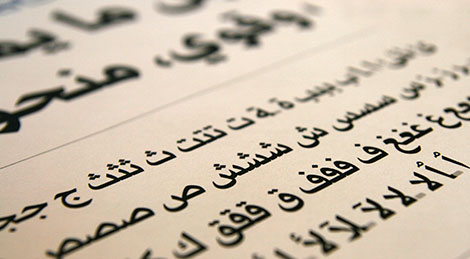
A native of Lebanon and specialist in Arabic fonts, Nadine was named one of the 100 Most Creative People in Business for 2012 by Fast Company magazine.
“Type cannot be divorced from the reality in which it lives. It is the voice with which we communicate, and it is the vessel of so many of our thoughts and feelings. To that end, type will always be seen in relation to the function it serves.
Some people call what we do art, but type design lives in the playing fields between reading and visual expression. It is the freedom to draw within the confines of public acceptance. It is a paradox, but that is what makes type design so enchanting.”
Nadine’s Work Surrounds Us
“Oh mountain, no wind can shake you” – this is the Lebanese saying that inspired Linotype typeface designer Nadine Chahine as she created the Gebran2005™ typeface. Designed for An-Nahar, Lebanon’s leading Arabic-language daily newspaper, Chahine’s creation is part of a major redesign of the publication.
Named after Gebran Tueni, An-Nahar’s former editor and publisher, Gebran2005 is a modern version of a classic, newspaper headline style. “Like Gebran himself, the typeface has a distinctive, self-assured presence,” Chahine says.